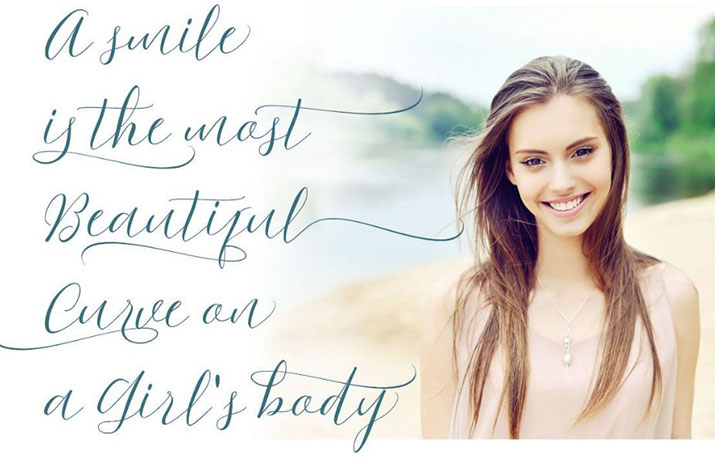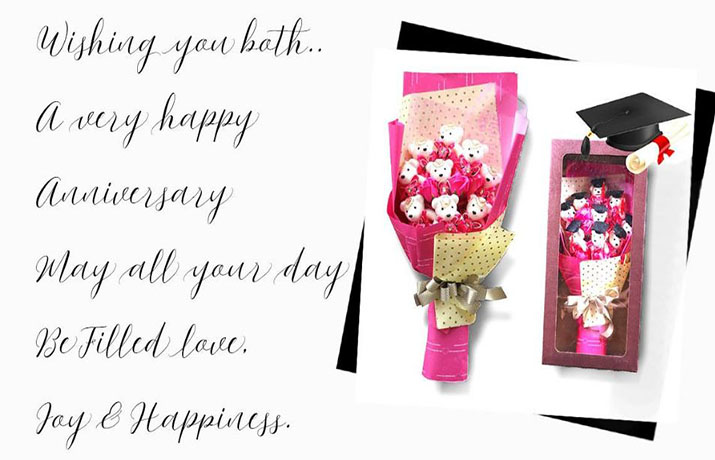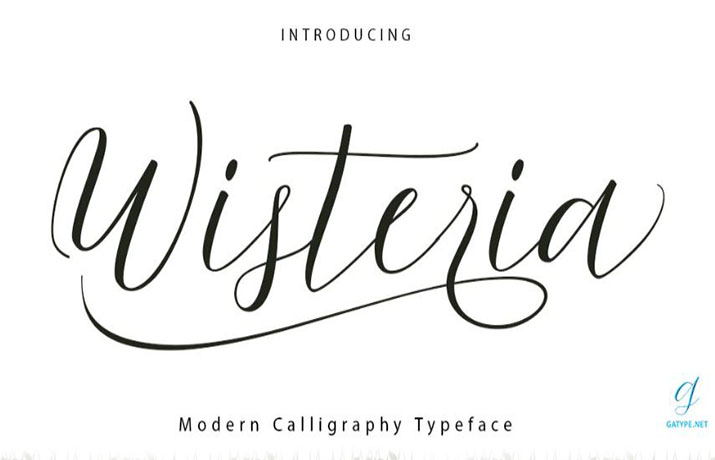
Wisteria Script Font is a modern script calligraphy tyepface that has delicate hairlines and graceful curves. It was designed and published by gatype.
Every letter has been carefully crafted to make your text formal and classic look. The designer has inspiration from old-fashioned calligraphy style.
With its modern script style, the Wisteria is perfect for many different projects such as wedding & greeting cards, invitations, special quotes, Instagram quotes, signatures, posters, and more.
“[Wisteria Script typeface comes in a single style that possesses both OTF and TTF formats. This font includes 435 glyphs, 29 ligatures, symbols, and few punctuation marks. Moreover, it also supports 70 global languages]”.
- You may make chic cards, unique phrases, movie posters, gaming graphics, printing on cloth, fashion magazines, shopping bags, corporate logos, greeting cards, stationery, letterpress, romantic novels, photography, birthday cards, watermarks, tattoos, stickers, signatures, invites, and wherever else you desire with this sophisticated font assistance.
This font supports 70 multilingual languages.